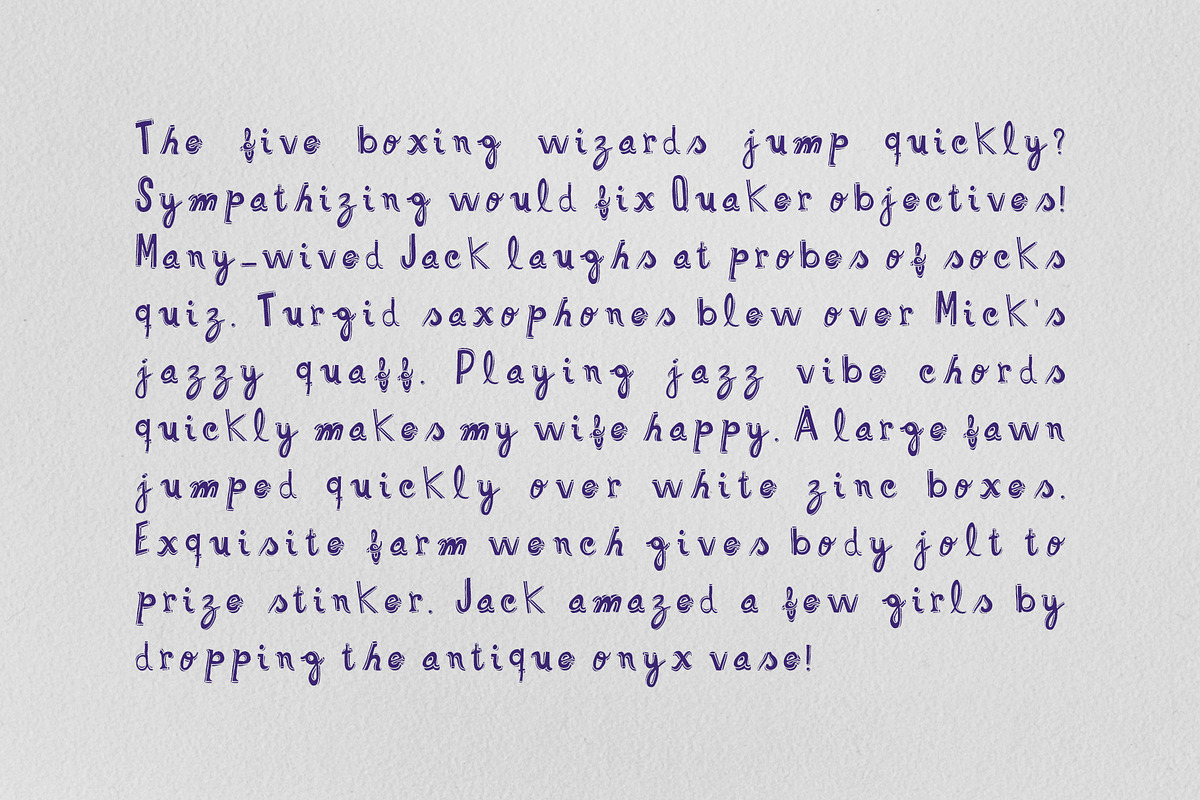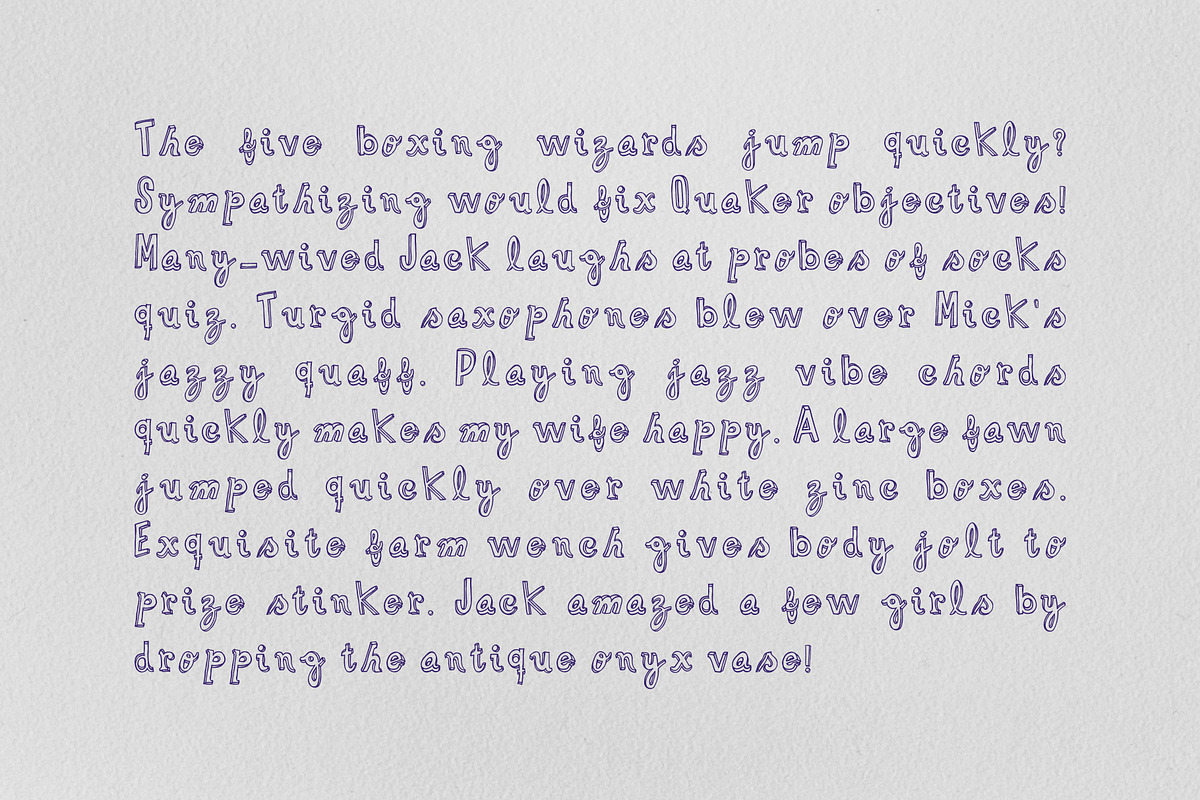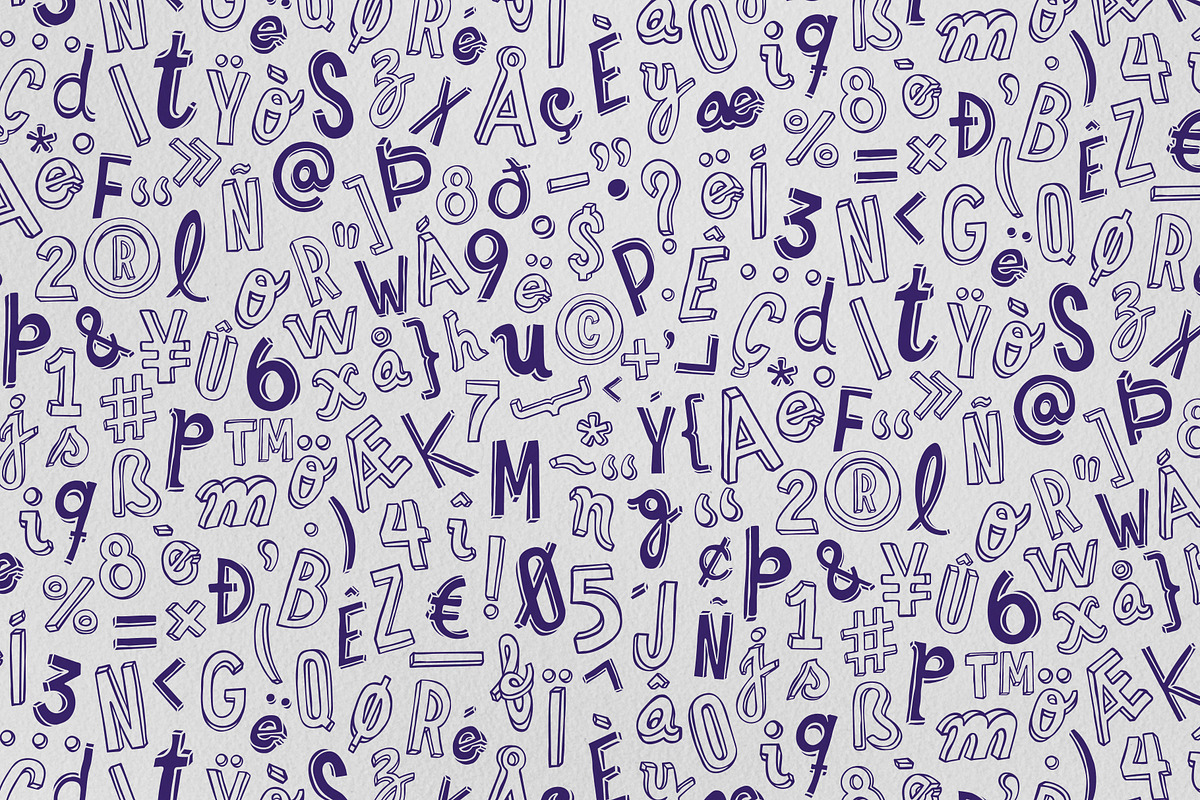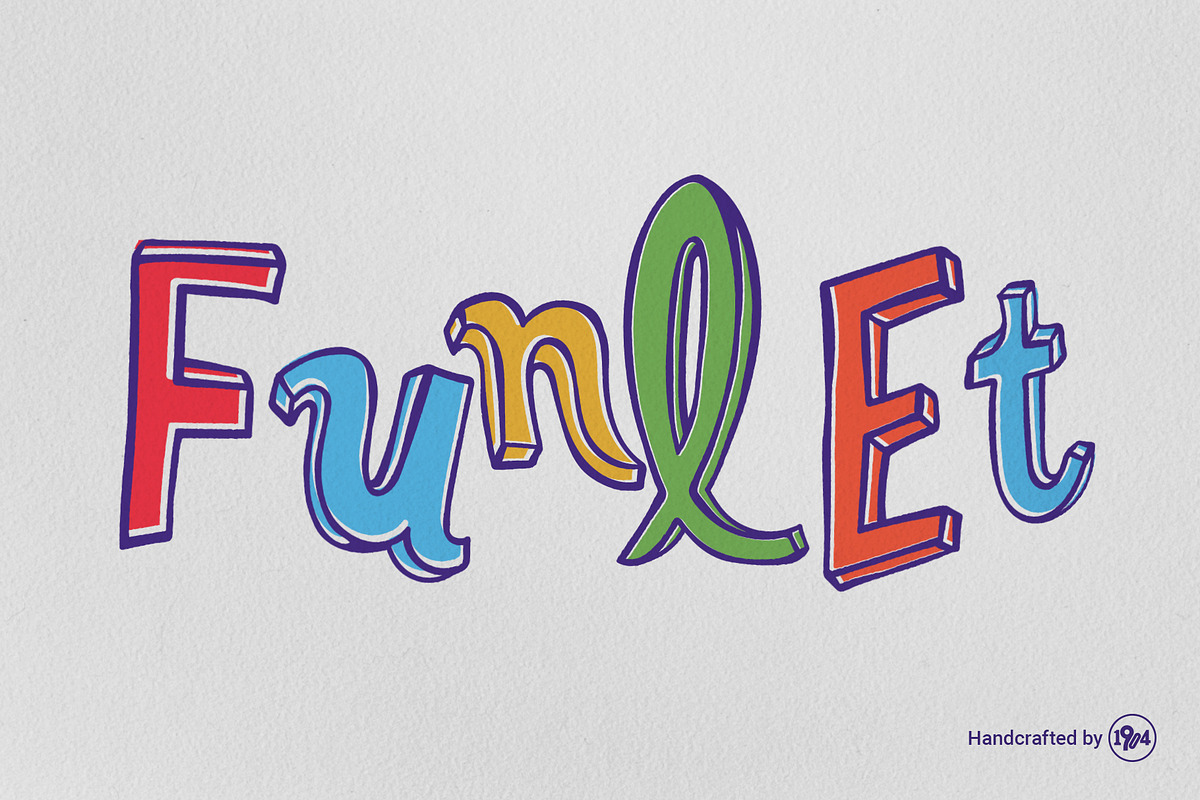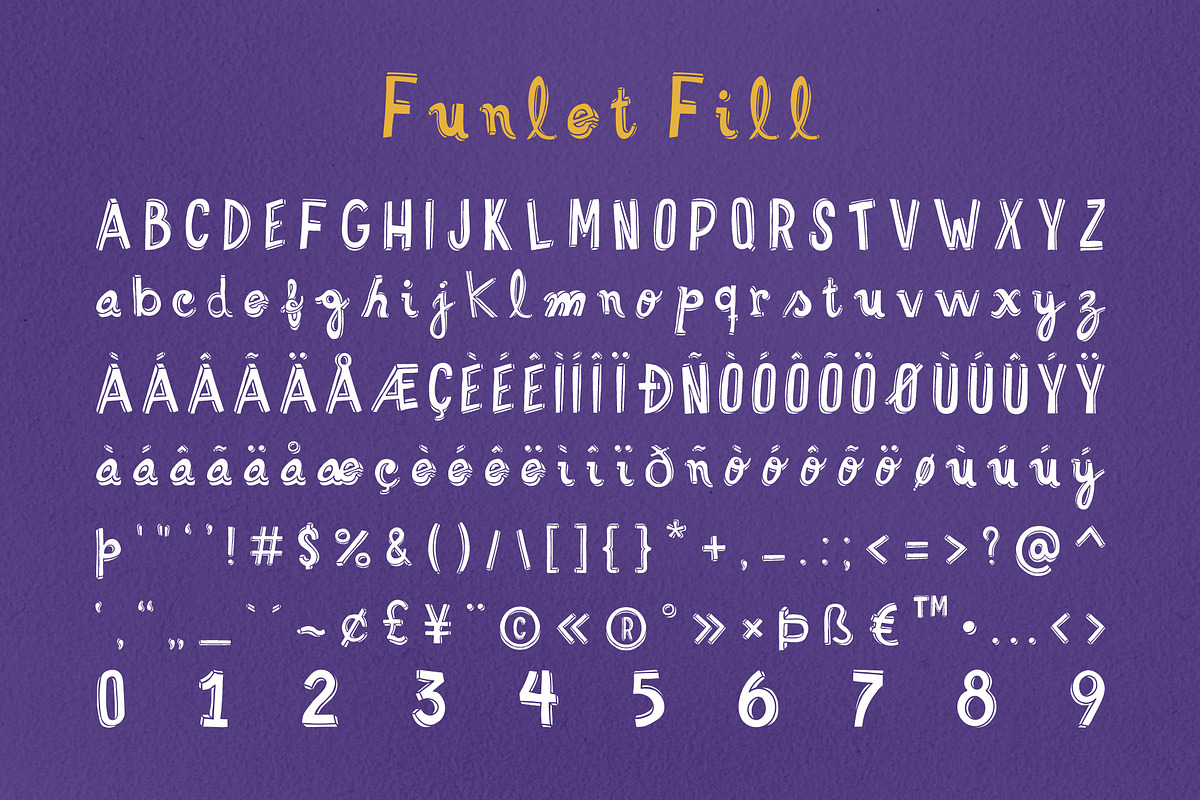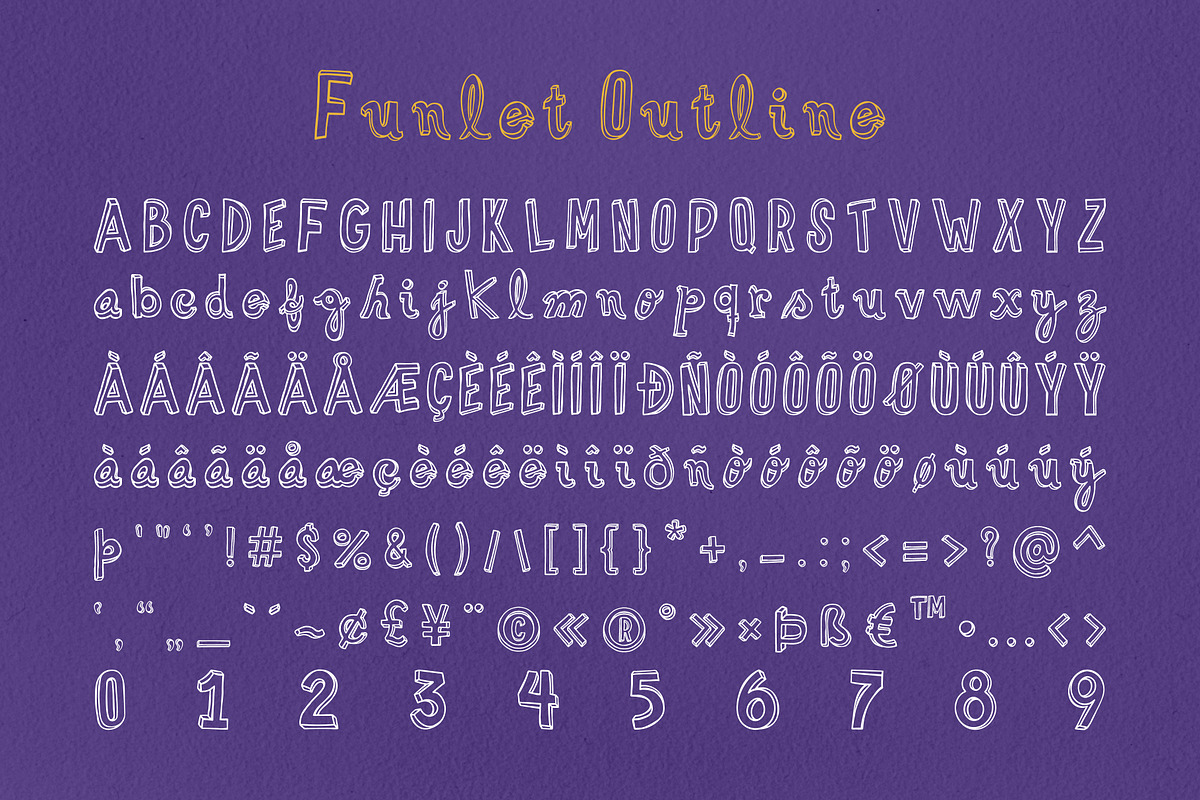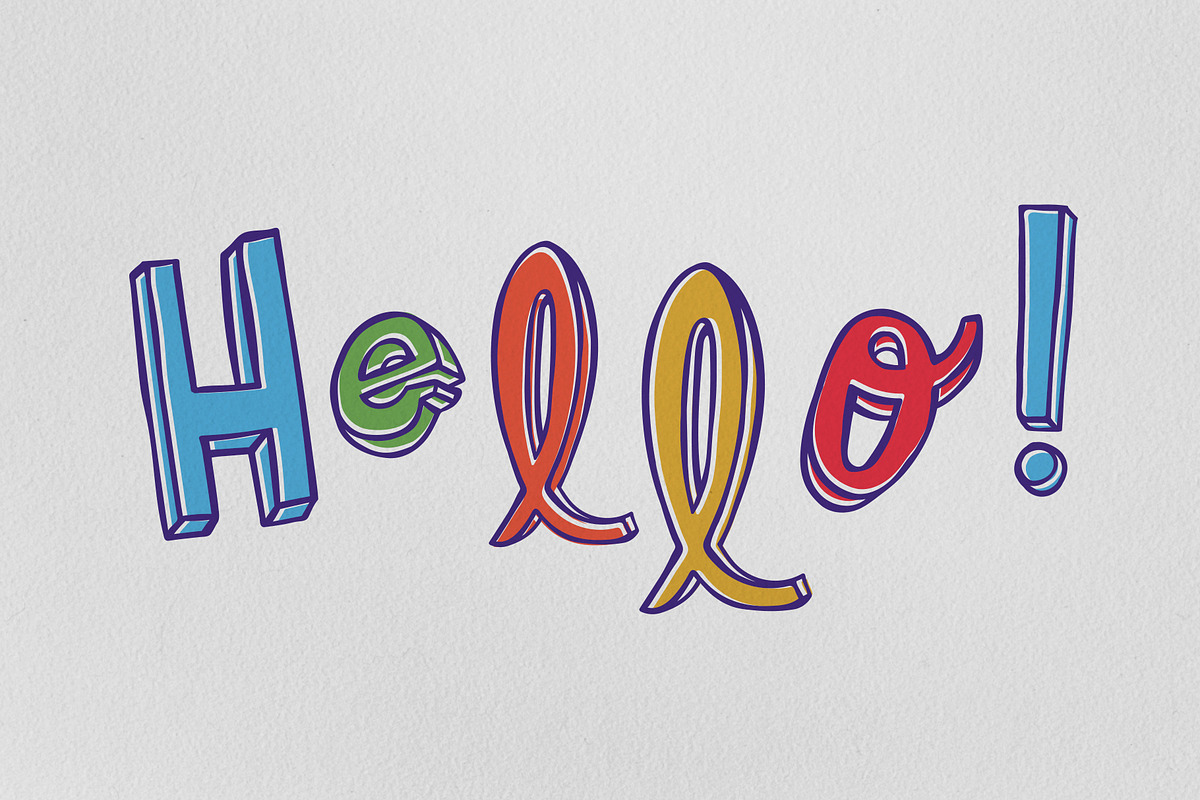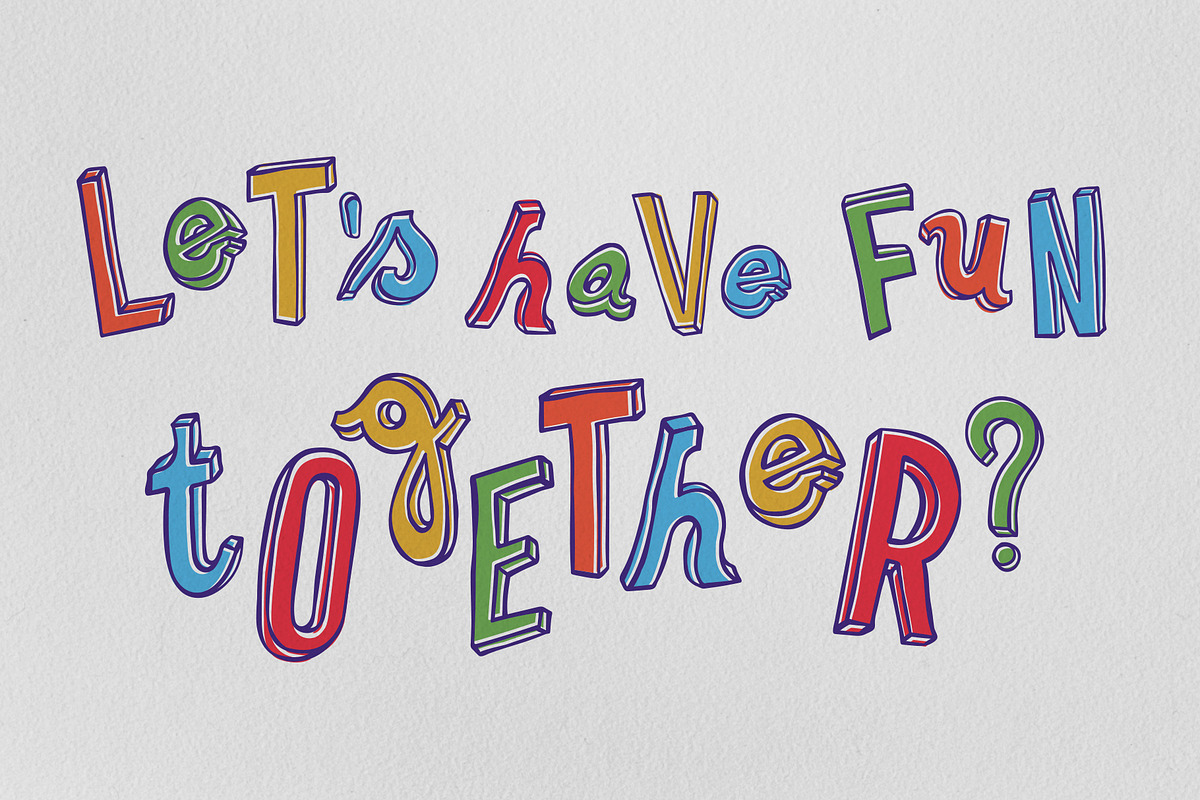
Funlet Typeface
Funlet is a handcrafted .otf typeface to be used in projects which denotes fun. It can also be used in children's books along with illustrations, for example. Funlet has 2 versions: Outline and Fill. They can be used combined or separately. Have Fun!